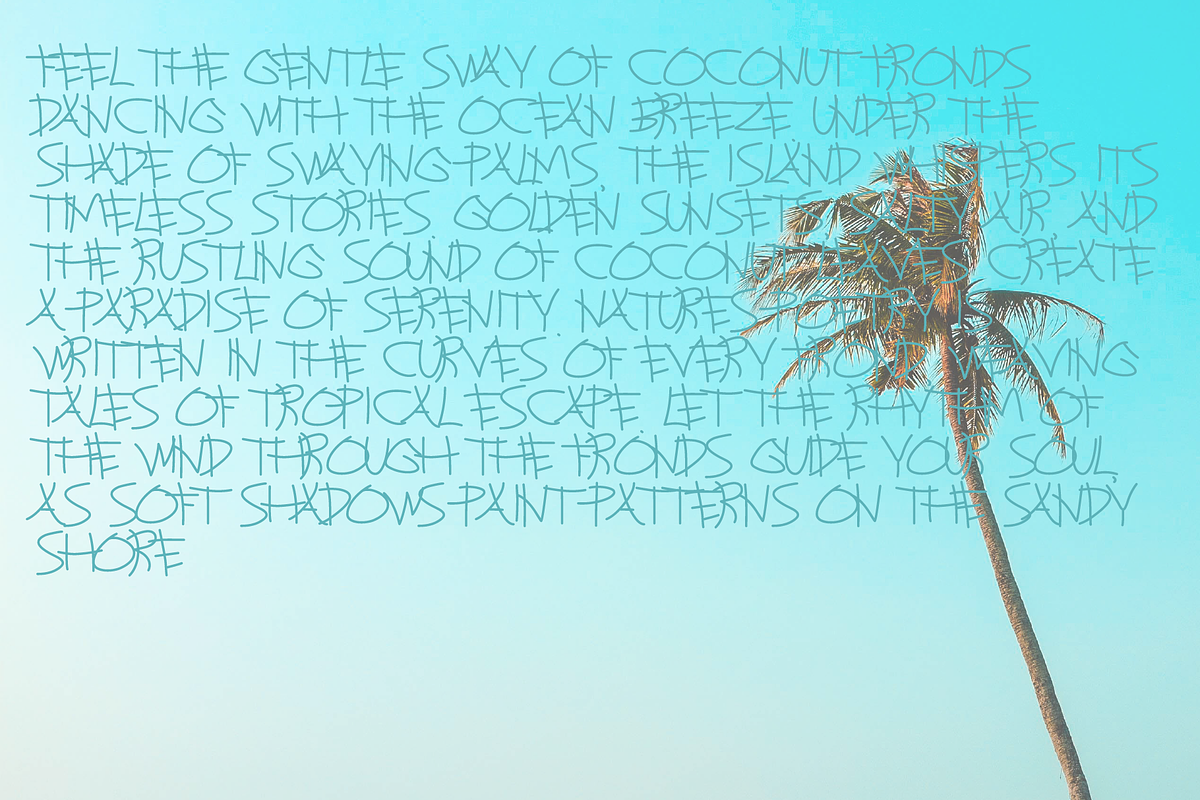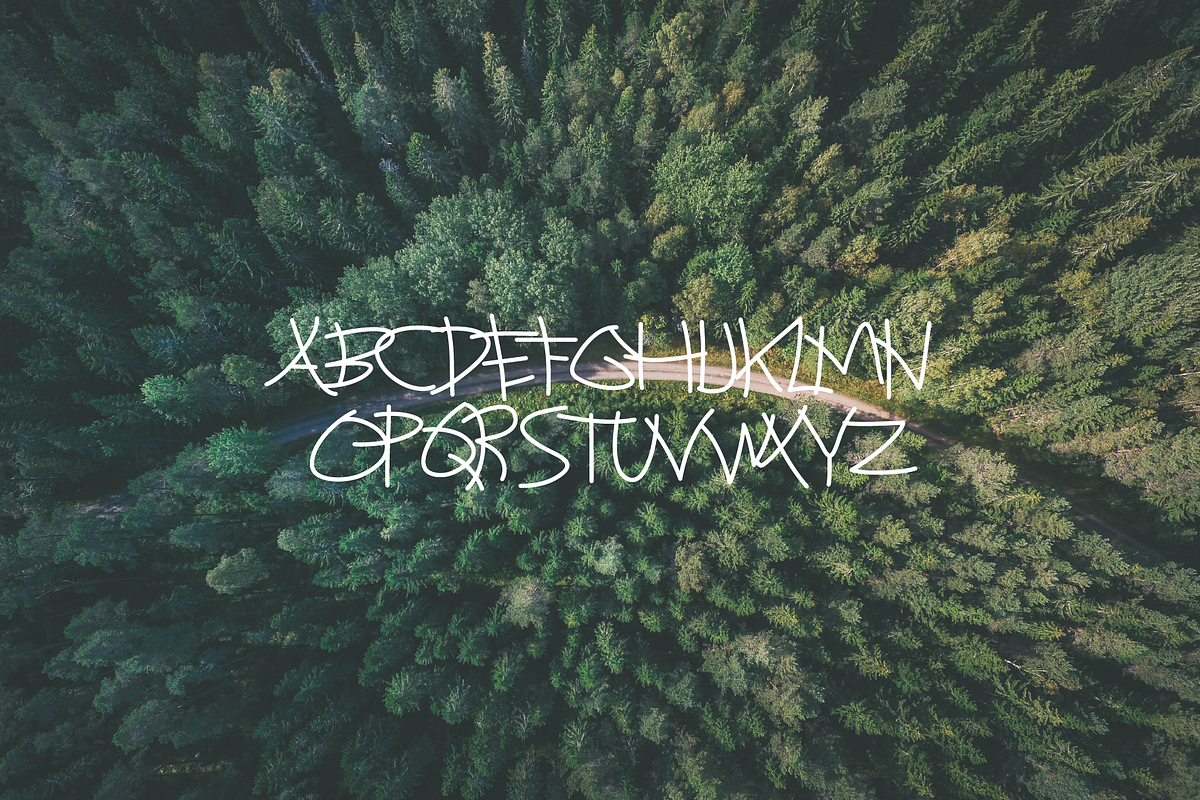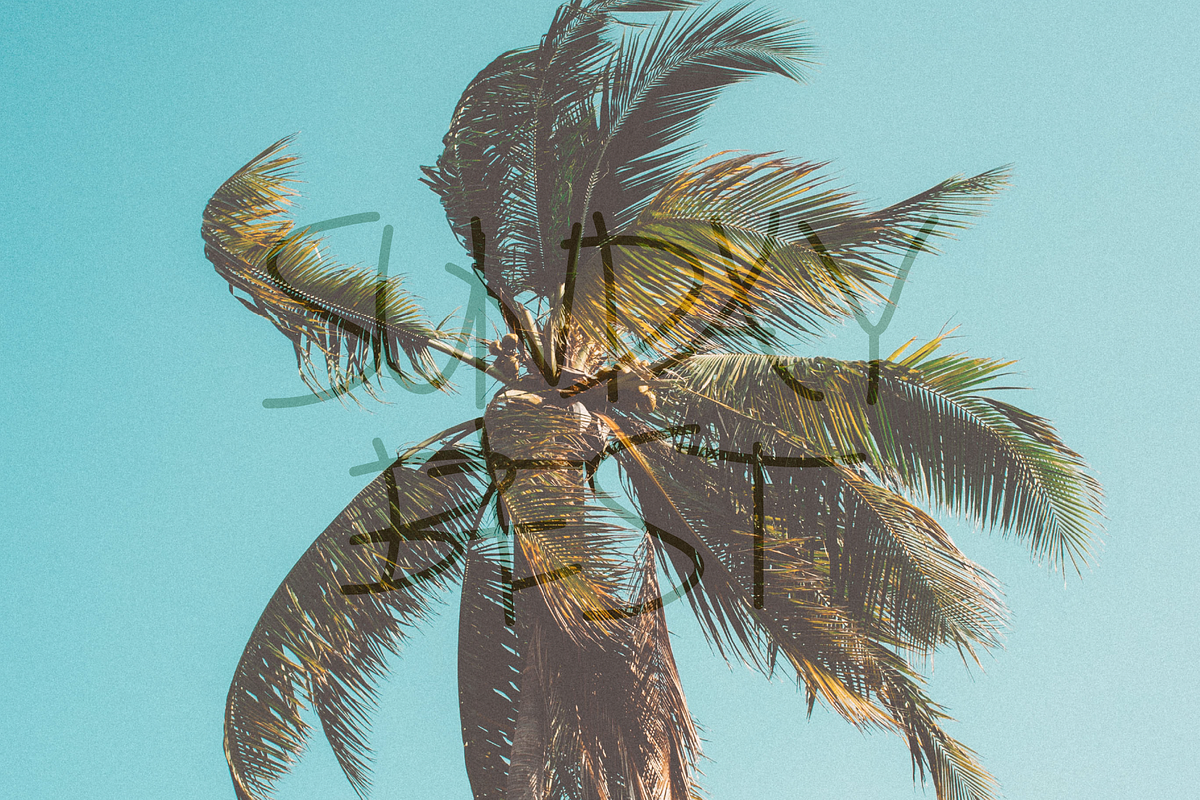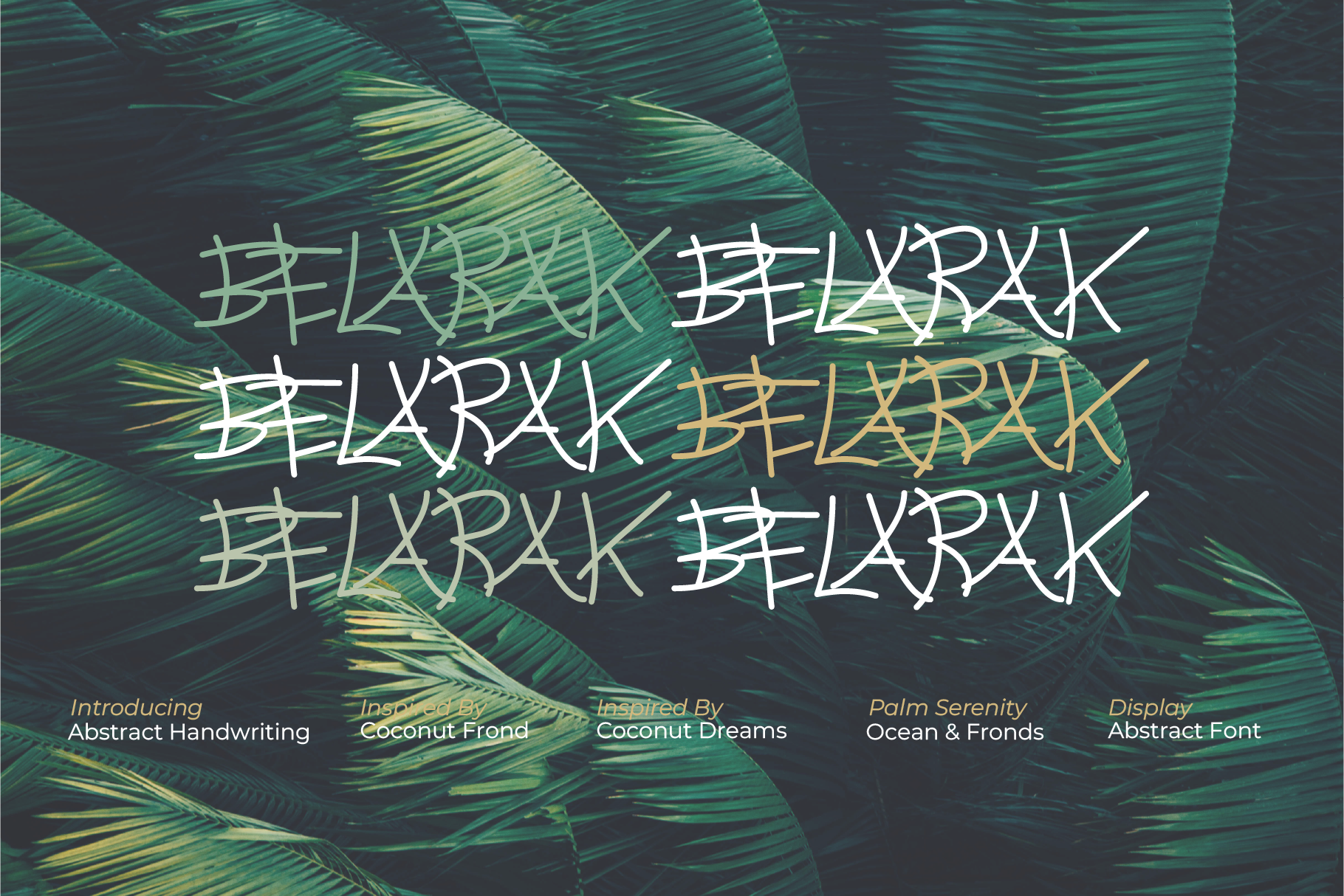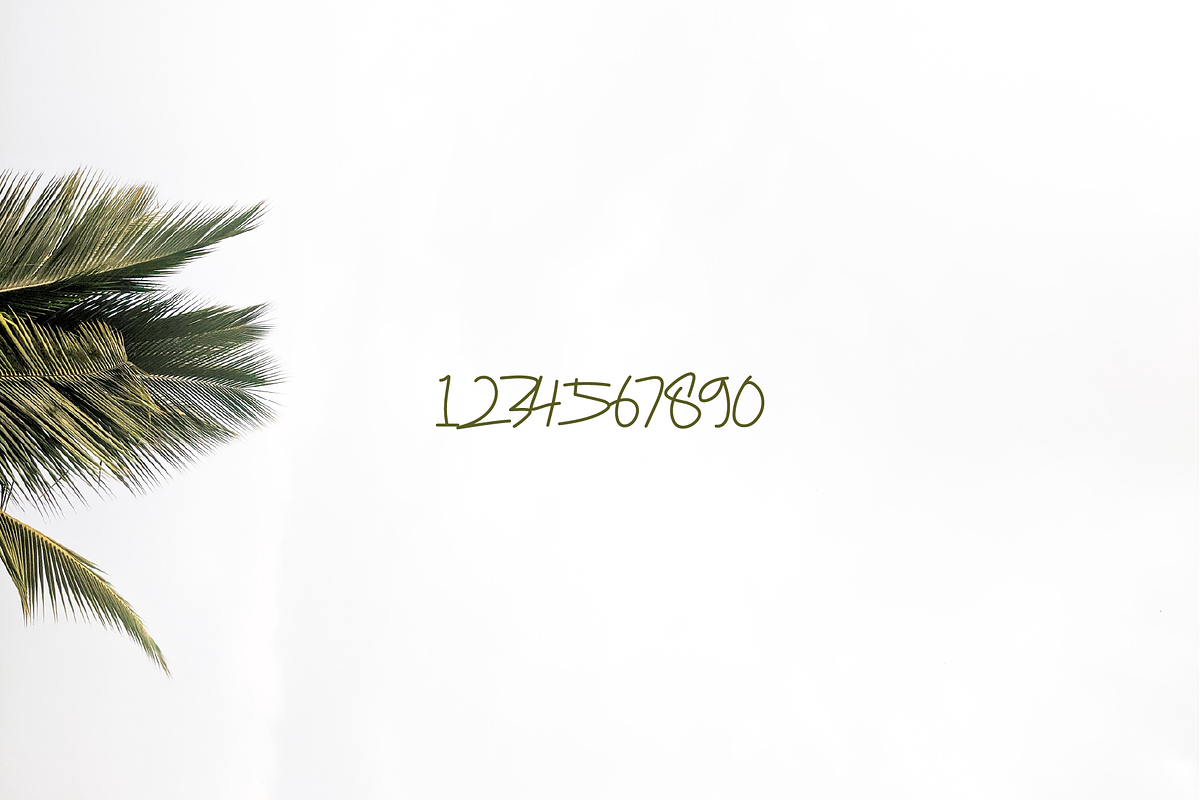
Belarak Coconut Font
Inspired by the slender, elongated stalks of coconut fronds, this font embodies a unique blend of organic flow and structured elegance. Its distinctive forms capture the natural rhythm of these delicate yet resilient elements, creating a design that feels both exotic and modern. With a touch of tropical artistry, this font is perfect for projects that seek to evoke nature’s beauty with a bold and sophisticated twist.